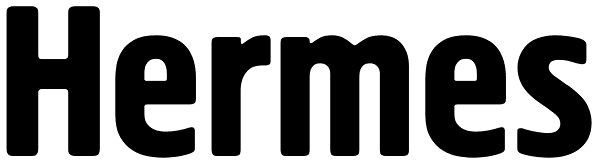
Hermes
The typeface was designed at ParaType (ParaGraph) in 1993 by Tagir Safayev. Based on Placard typeface (Hermes Grotesk) of the Lange type foundry (St.-Petersburg), an adaptation of Hermes Grotesk, of the Woellmer type foundry (Berlin, middle of the...